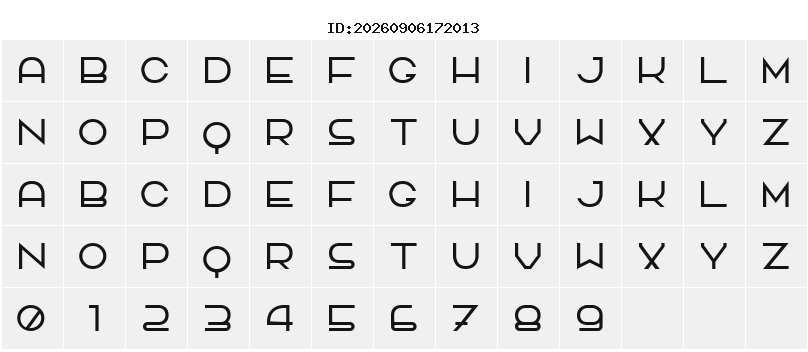
About TPF Quackery.ttf
TPF Quackery.ttf is a modern, elegant sans-serif font designed for ultimate readability and visual harmony. Perfect for branding, headlines, web design, and print materials.